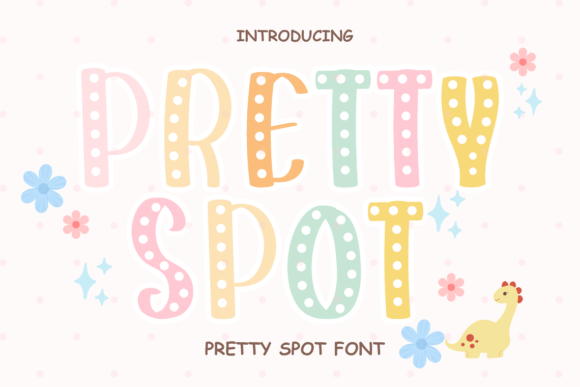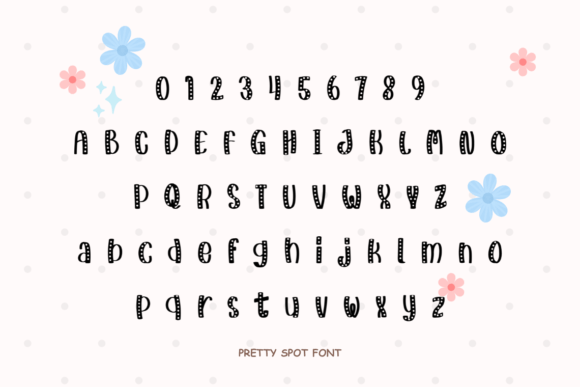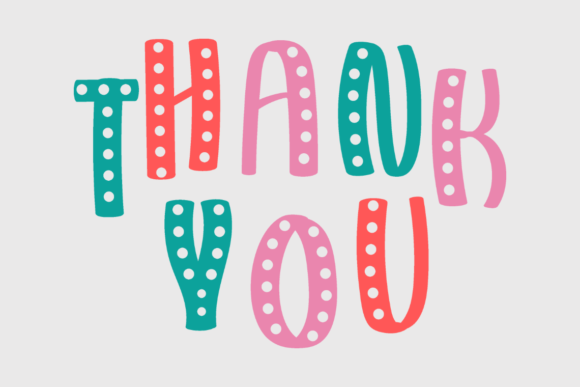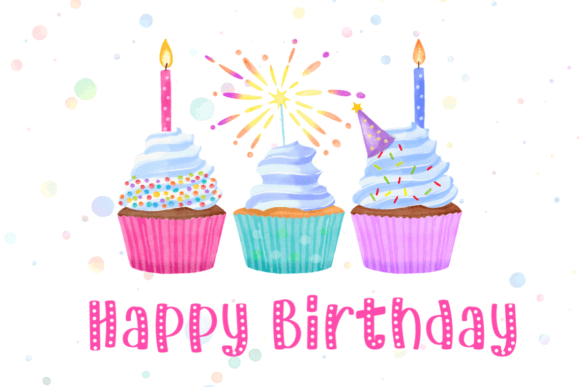
Pretty Spot Font: A Cute Display Font for Cricut & Craft Projects
About the Pretty Spot Font
Welcome to the world of Pretty Spot Font, a typeface that will inspire your next great project. Experience the harmonious blend of style and functionality with the Pretty Spot font. Expertly crafted to embellish any project with decorative flair, this font exudes an artistic appeal that propels your creative expression to new heights. Perfect for those who honor originality, the Pretty Spot font readily transforms your projects into unique masterpieces. Enjoy the endless possibilities as you incorporate this font, changing the landscape of your creativity.
Pretty Spot’s playful, yet refined aesthetic makes it ideal for headlines, short-form text on packaging, and branding elements such as logos or short taglines. Its decorative nature, however, limits its effectiveness in body text or UI, where readability is paramount. Extended use could strain legibility.
Consider pairing Pretty Spot with a clean sans-serif like Lato for a balanced contrast, or a classic serif such as Garamond for a more traditional feel. For a more modern approach, geometric sans-serifs like Montserrat could create a striking juxtaposition.
The font’s core personality is best described as cheerful and sophisticated; it projects a sense of fun without compromising elegance. This makes it a perfect fit for brands targeting a young, yet discerning audience, particularly within the fashion, beauty, or lifestyle sectors.
Pretty Spot Font Usage Examples
Pretty Spot Font Example